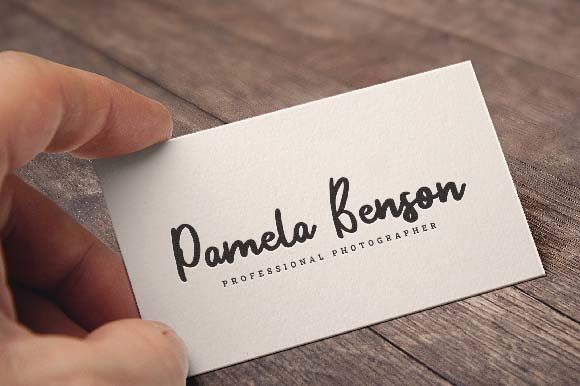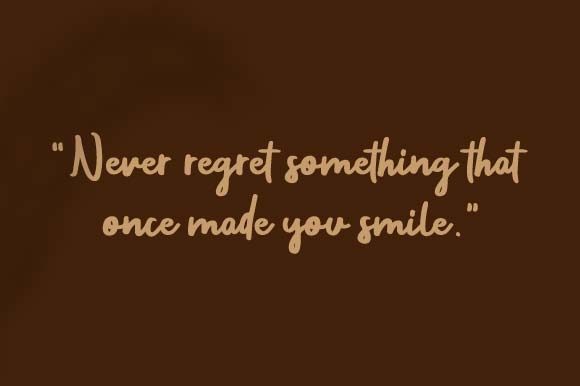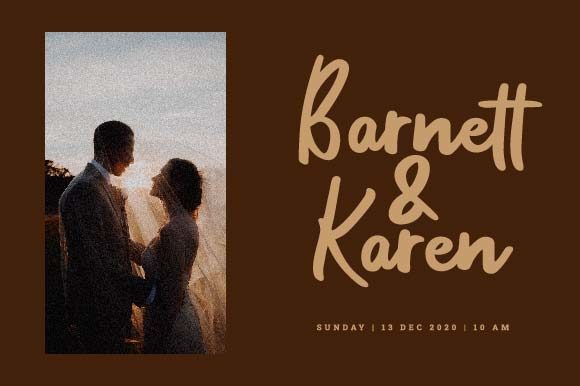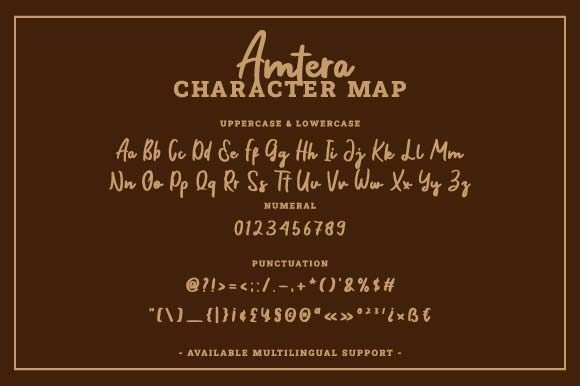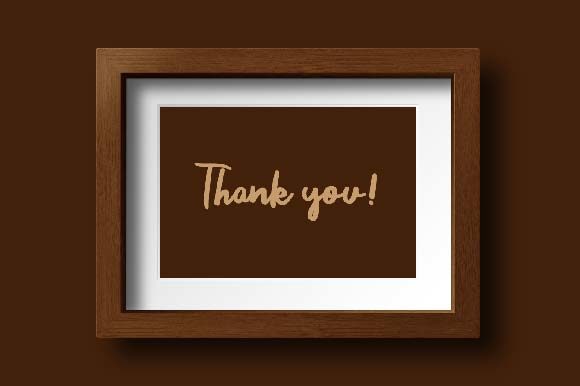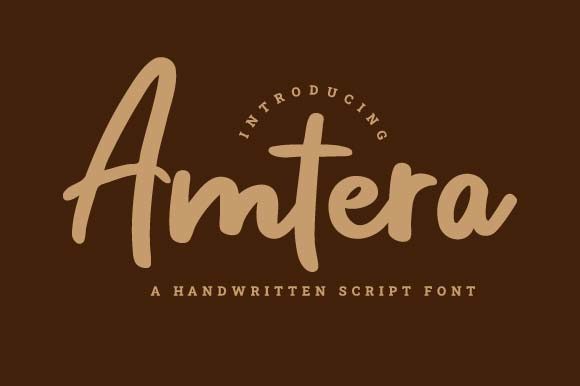
Introducing Amtera Font: The Ultimate Bold and Casual Handwritten Font
Are you a designer or crafter looking for a font that can elevate your creative projects? Look no further than Amtera Font, a bold and casual handwritten font that is perfect for a wide range of applications. From business cards to social media posts, branding to wedding invitations, Amtera Font is the perfect choice for anyone looking to add a personal touch to their designs.
What is Amtera Font?
Amtera Font is a unique and stylish handwritten font that is designed to make your designs stand out. Its bold and casual style makes it perfect for a variety of projects, from formal to informal. The font is carefully crafted to ensure that it is easy to read and understand, making it perfect for use in a wide range of applications.
What Can I Use Amtera Font For?
Amtera Font is a versatile font that can be used for a wide range of projects, including:
- Business cards: Add a personal touch to your business cards with Amtera Font.
- Social media posts: Make your social media posts stand out with Amtera Font.
- Branding: Use Amtera Font to create a unique and recognizable brand identity.
- Wedding invitations: Add a touch of elegance and sophistication to your wedding invitations with Amtera Font.
- Logos: Create a bold and eye-catching logo with Amtera Font.
- Photographer watermarks: Add a professional touch to your photos with Amtera Font.
- Food packaging: Make your food packaging stand out with Amtera Font.
- Beauty products: Add a touch of elegance and sophistication to your beauty products with Amtera Font.
- Crafts: Use Amtera Font to add a personal touch to your crafts, such as handmade cards and gift tags.
Why Choose Amtera Font?
There are many reasons why Amtera Font is the perfect choice for designers and crafters. Here are just a few:
- Unique and stylish: Amtera Font is a unique and stylish font that will make your designs stand out.
- Easy to read: Amtera Font is carefully crafted to ensure that it is easy to read and understand.
- Versatile: Amtera Font can be used for a wide range of projects, from formal to informal.
- High-quality: Amtera Font is a high-quality font that is designed to produce exceptional results.
Amtera Font is a bold and casual handwritten font that is perfect for designers and crafters. Its unique and stylish design makes it perfect for a wide range of projects, from business cards to social media posts, branding to wedding invitations. With its ease of use and high-quality design, Amtera Font is the perfect choice for anyone looking to add a personal touch to their designs.